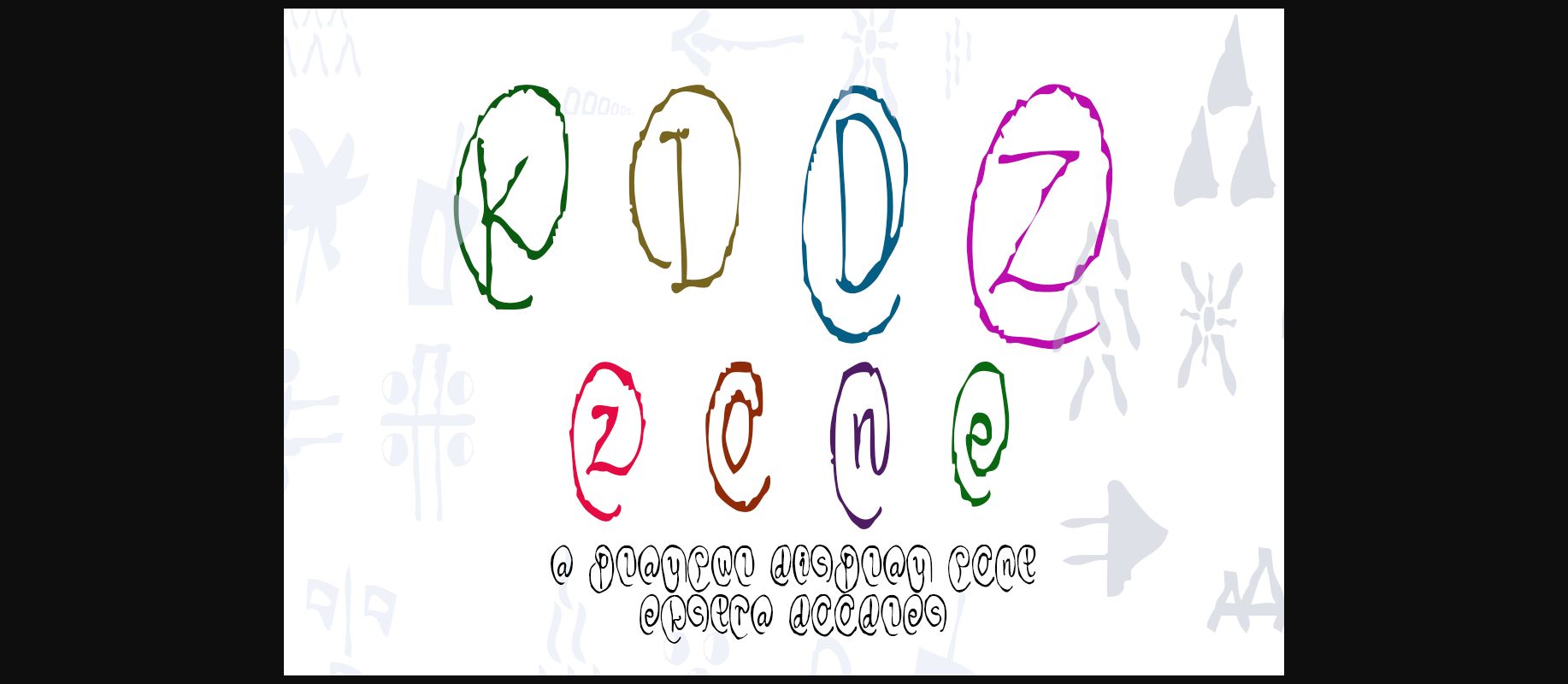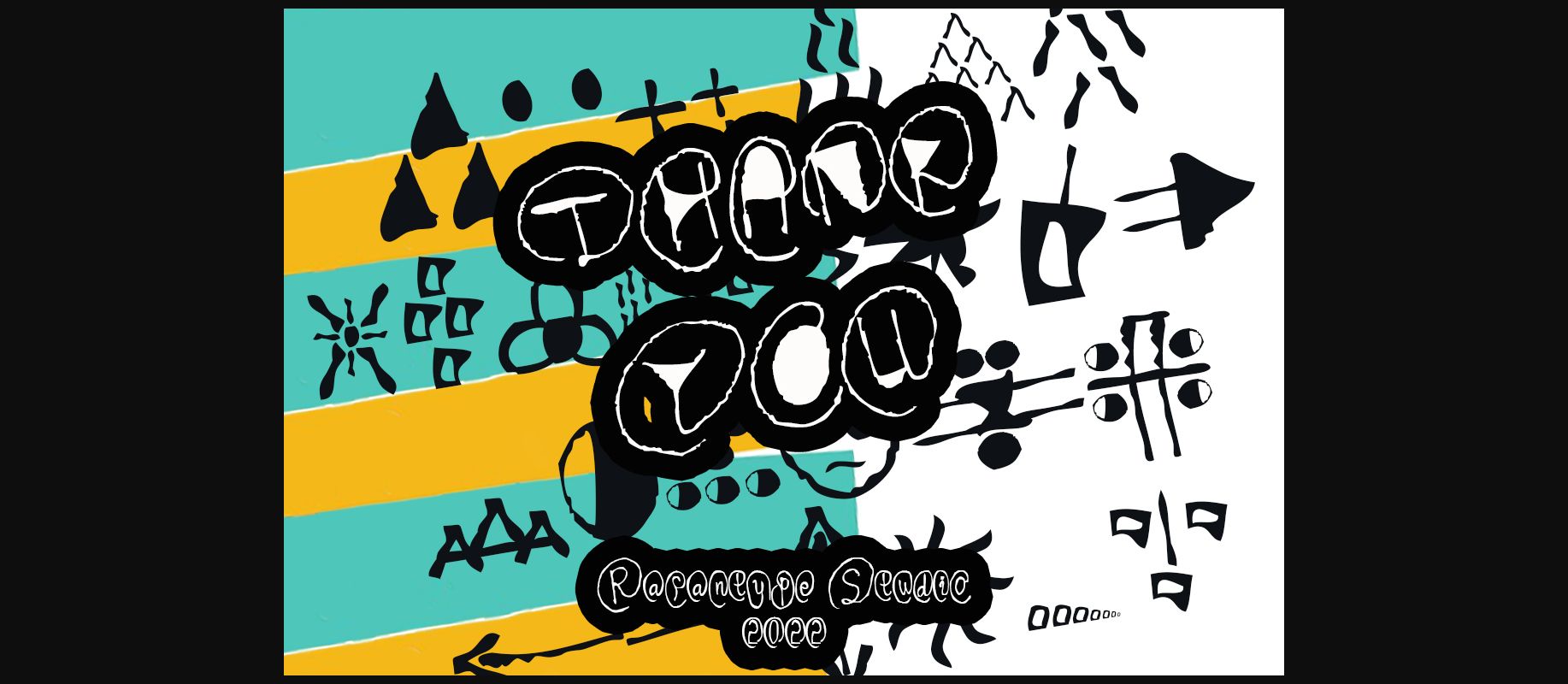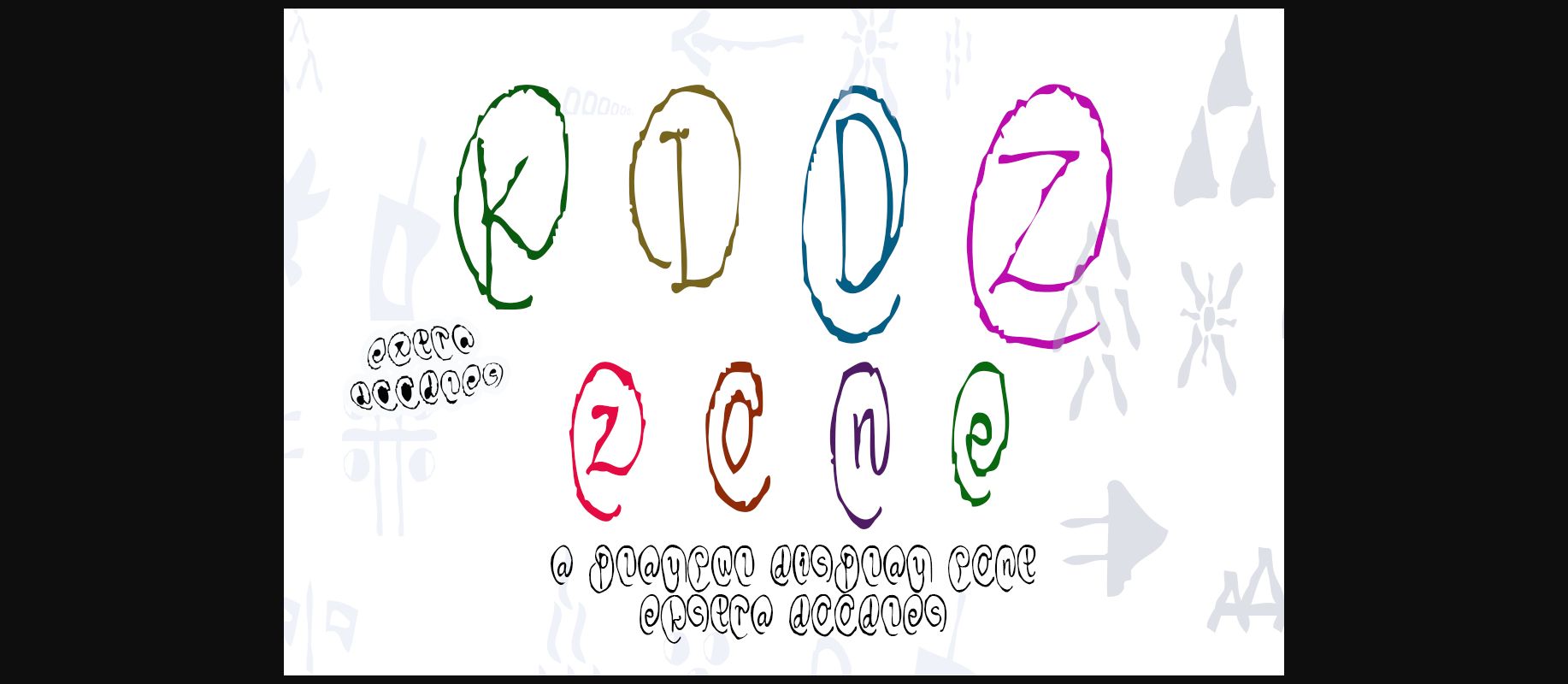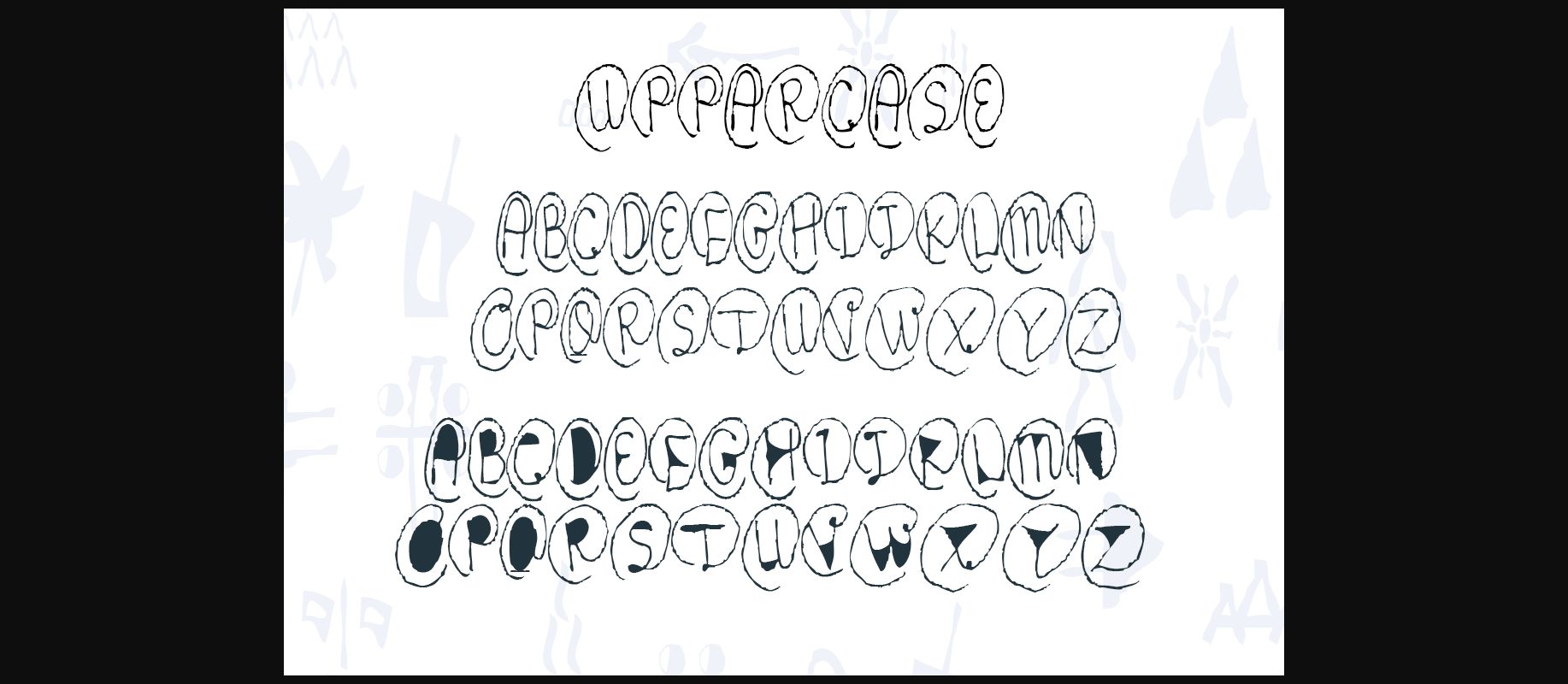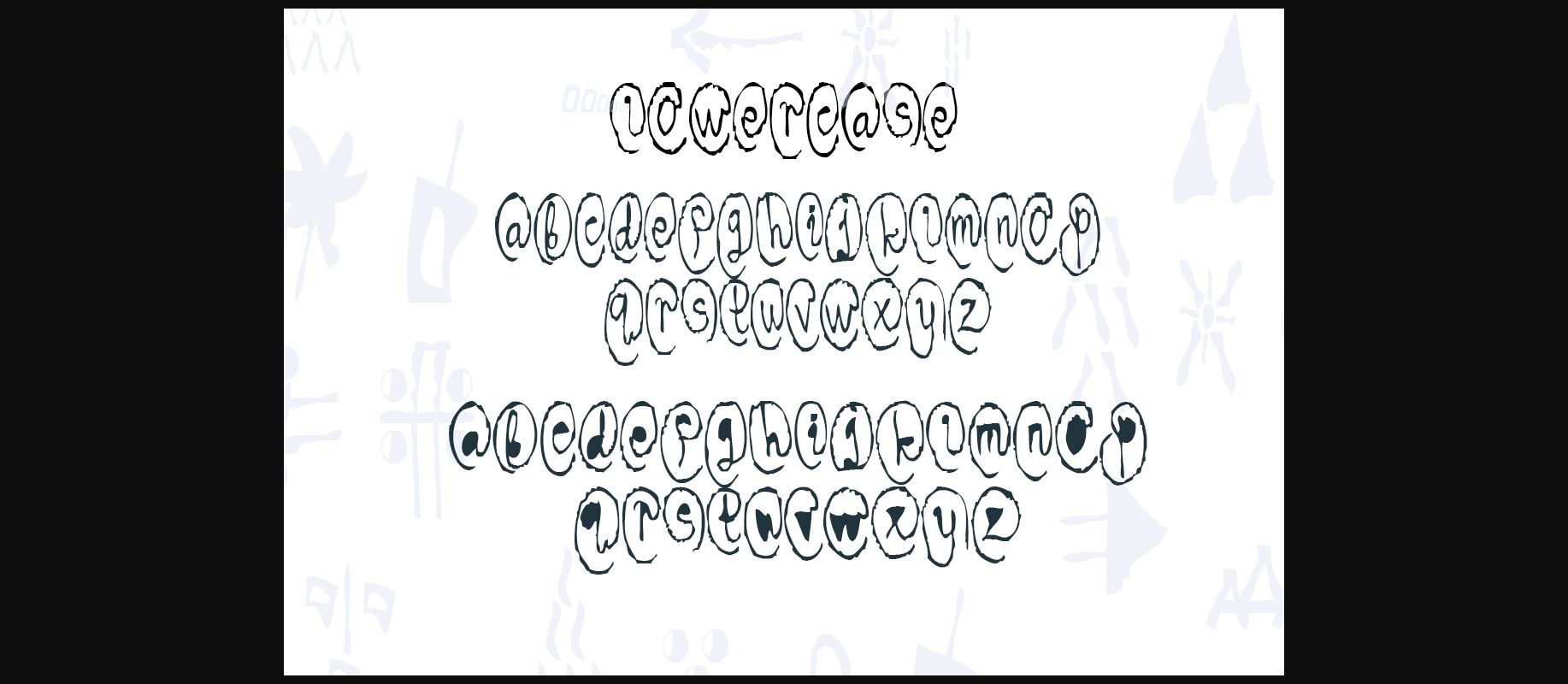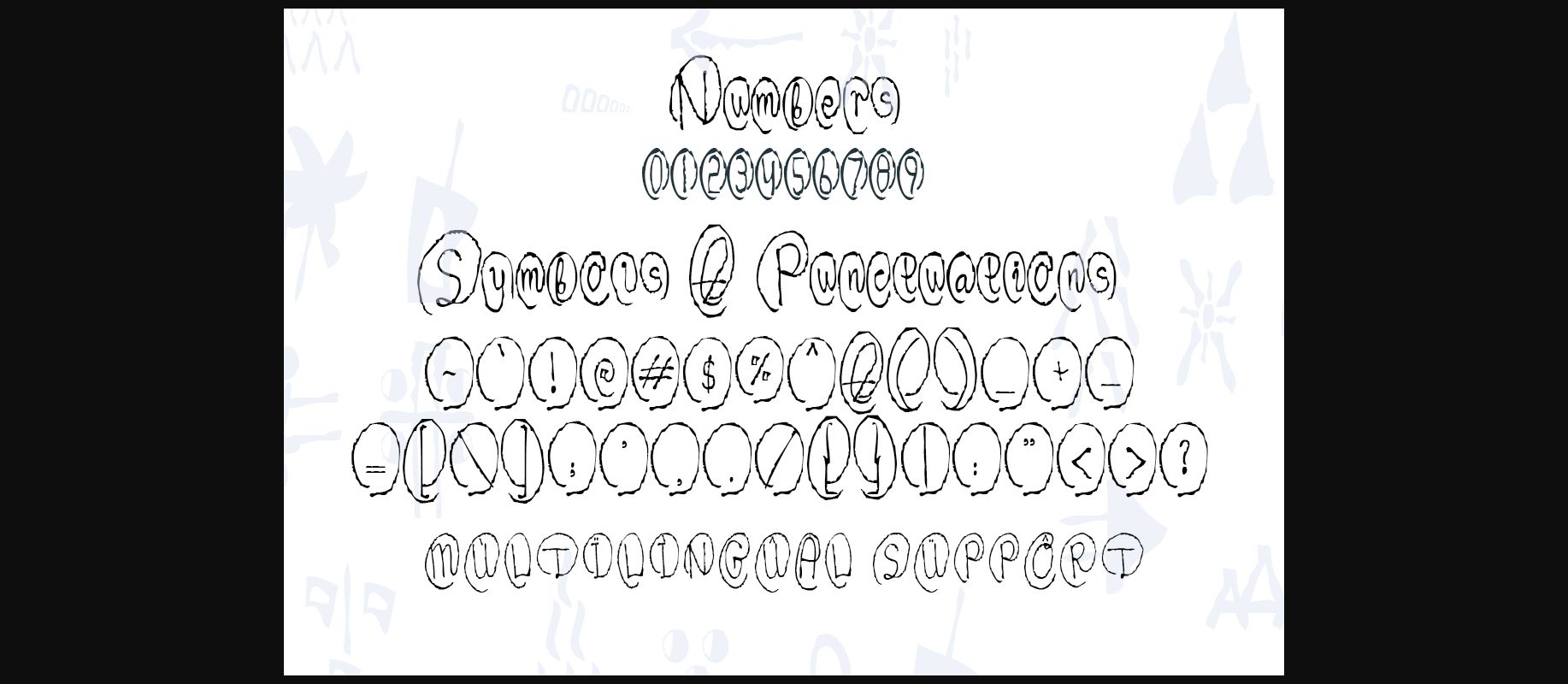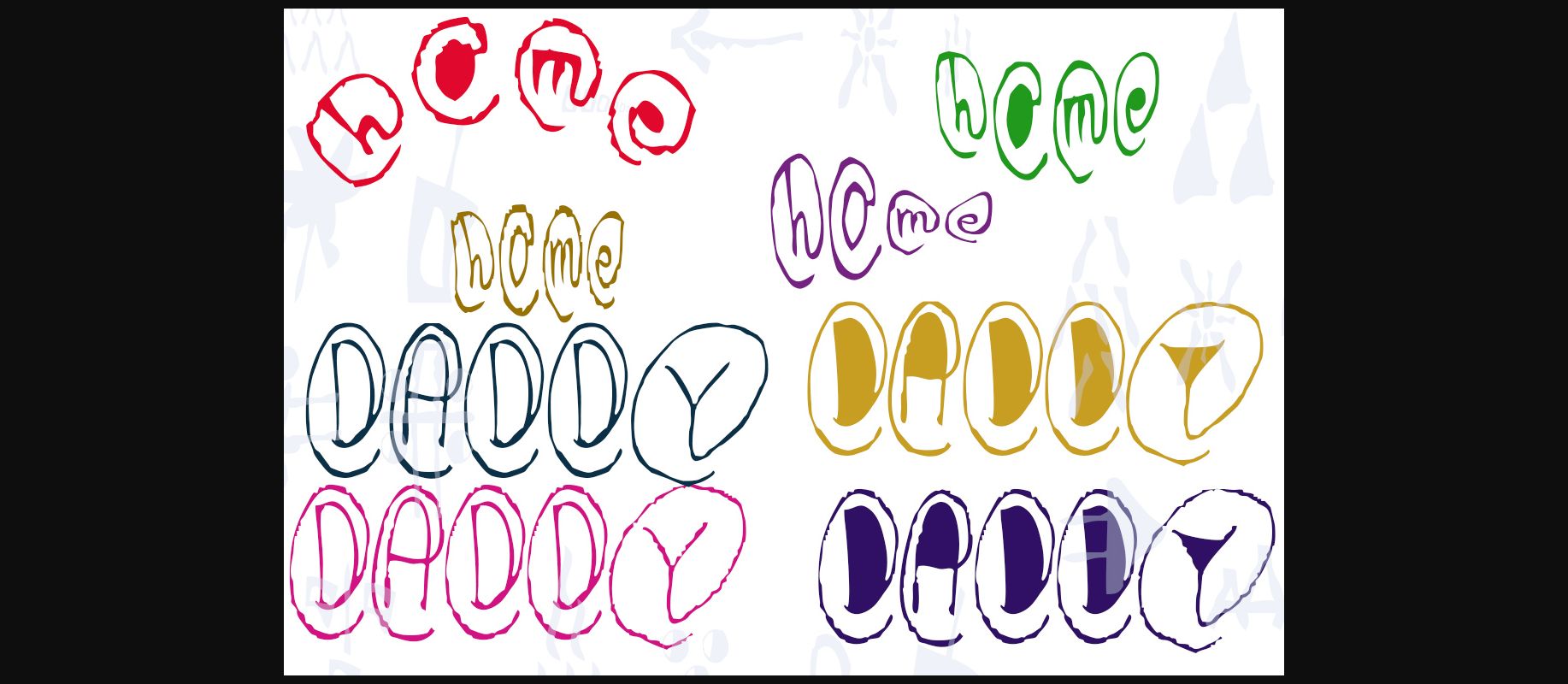
Kidz Zone Font
About Kidz Zone Font
Kidz Zone is a childish, quirky, and fun decorative font that will put a whimsical and playful twist on any design project. This font is the perfect fit for all of your logos, branding, social media, and crafty DIY projects. This font is PUA encoded, which means you can access all of the glyphs and swashes with ease!